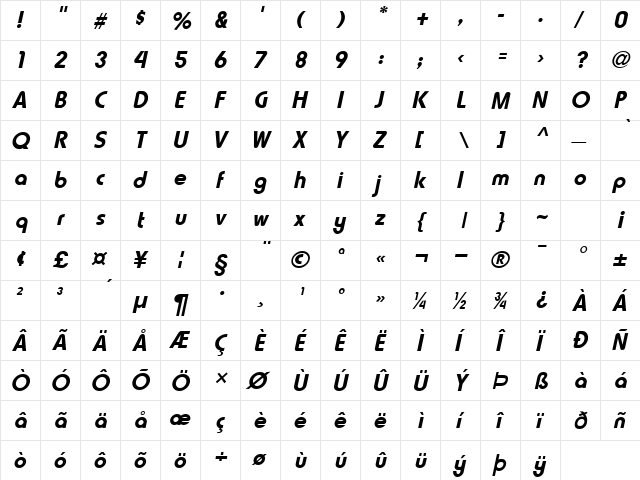
Lauren Italic
Design Context for Lauren Typeface
Lauren is a composed and adaptable typeface that performs quietly and consistently across a wide range of design contexts. The slanted form adds forward momentum and visual energy.
Pro Tip: Try Lauren for annotation and caption copy alongside an upright companion — the contrast in angle creates a dynamic but ordered typographic system.